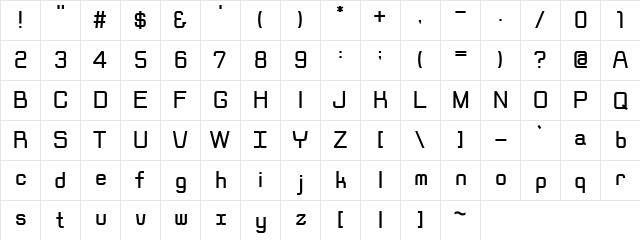
Rippen Regular
Design Context for Rippen Typeface
Rippen takes a measured approach to typography — its balanced proportions and neutral character make it a reliable workhorse for both digital and print work.